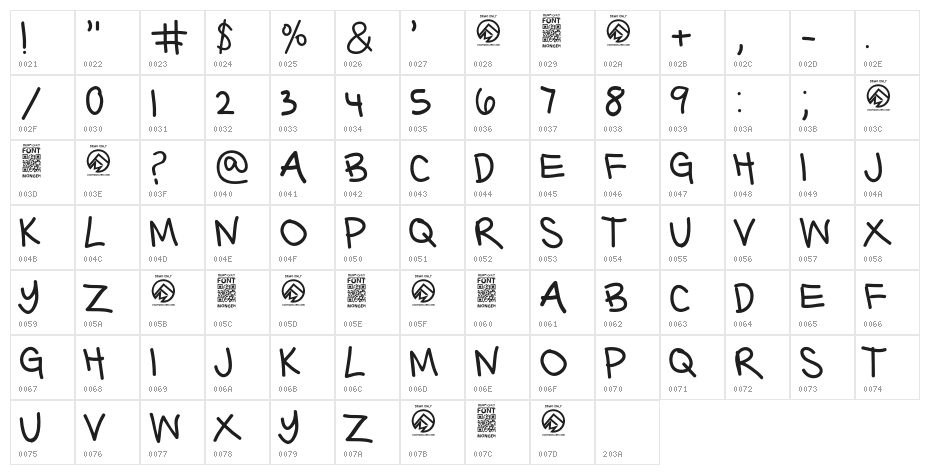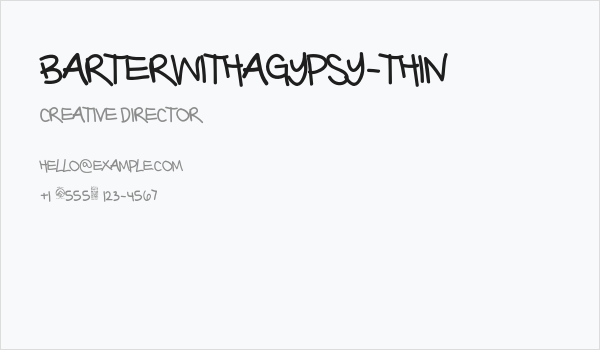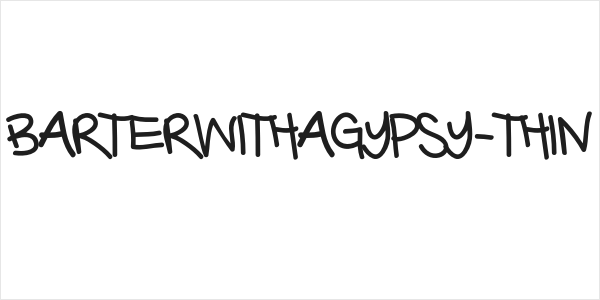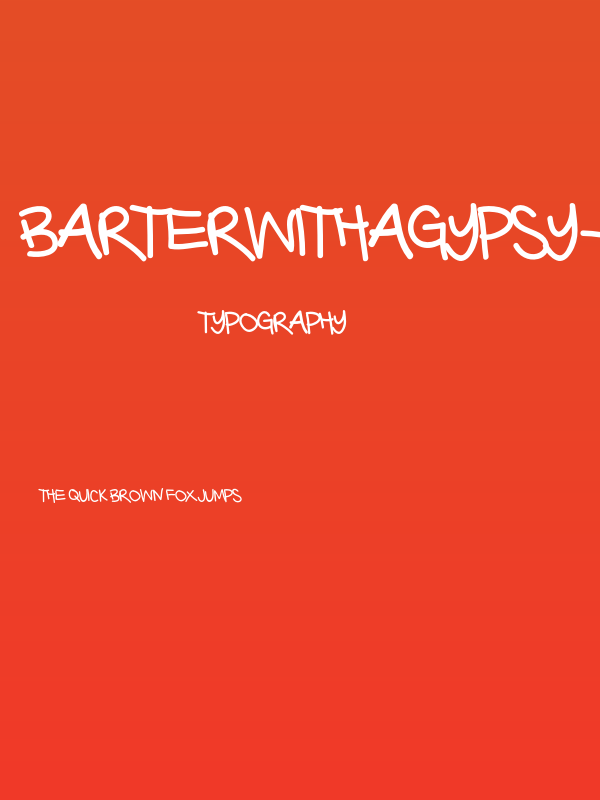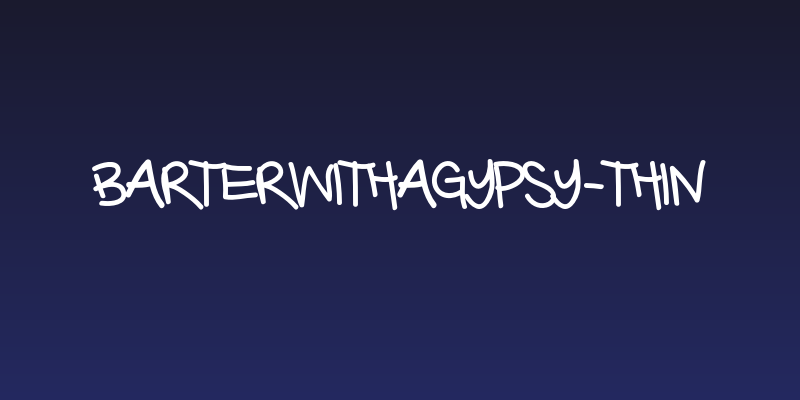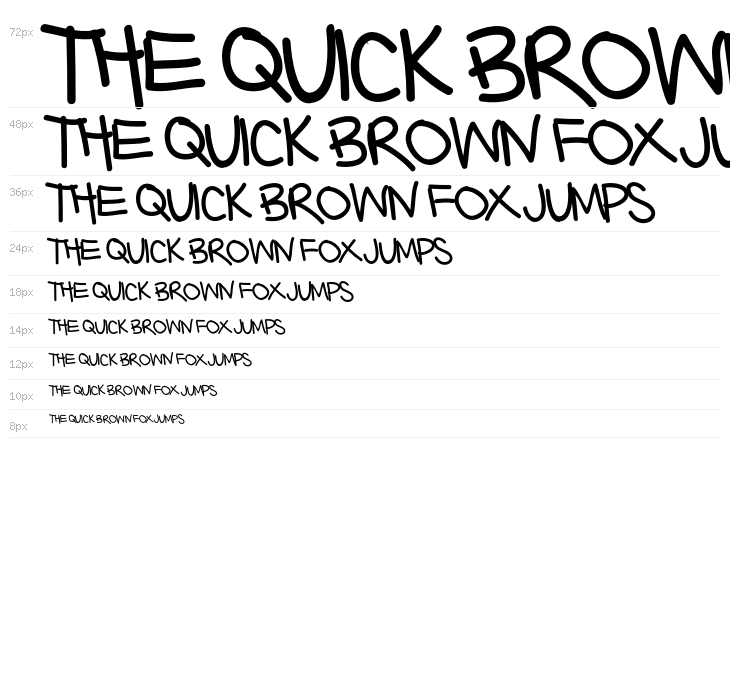
BarterwithaGypsy-Thin Font
BarterwithaGypsy-Thin Description
This font exhibits a playful and informal handwritten style, characterized by its smooth, flowing lines and slightly irregular shapes. The letters are bold and rounded, giving a friendly and approachable appearance. The uppercase and lowercase letters maintain a consistent style, with a slight slant that adds to the casual feel. The numbers and special characters are designed to match the overall aesthetic, ensuring a cohesive look across all text. This font is ideal for projects that require a personal touch or a sense of whimsy.
| Use Case | Headlines, Informal text, Branding |
| Proposed Projects | Perfect for greeting cards, children's books, casual branding, and social media graphics. |